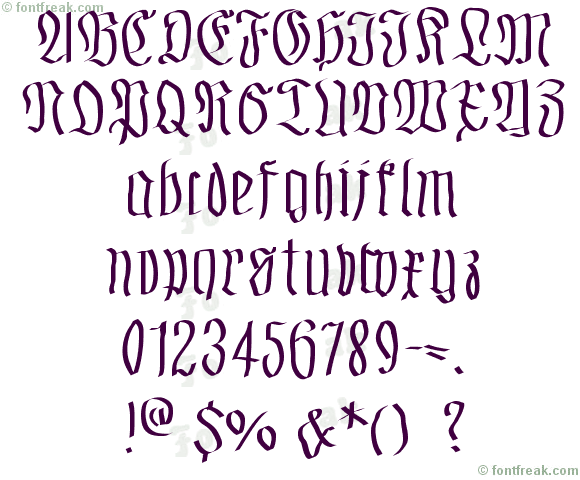
FraxMouseSketches
Frax Mouse Sketches is a delightful display font created by the talented Manfred Klein. This unique typeface falls within the handwritten category, showcasing a charming and whimsical style that is perfect for a variety of creative projects. The font features a playful stroke weight, with irregularities that mimic the appearance of hand-drawn sketches. This gives it a distinct character, making each letter feel personal and inviting. The contrast within the letters is subtle, creating a harmonious flow that enhances readability while maintaining its artistic flair.
The spacing of the characters is thoughtfully designed, allowing for smooth transitions between letters without feeling cramped. Decorative elements, such as playful curves and organic shapes, add to the overall charm of the font, making it an excellent choice for projects that aim to evoke a sense of fun and creativity. Frax Mouse Sketches is ideal for use in children's book titles, quirky branding for cafes or boutiques, engaging event invitations, and eye-catching social media graphics. Its versatility allows it to adapt to various contexts, appealing to both casual and professional users.
The target audience for this font includes graphic designers, small business owners, and content creators looking to add a unique touch to their projects. Whether you are designing a logo, crafting promotional materials, or creating digital content, this font can elevate your work with its distinctive style.
What truly sets Frax Mouse Sketches apart is its ability to bring a sense of warmth and personality to any design. Its handcrafted appearance allows it to stand out in a sea of digital fonts, making it a memorable choice for anyone seeking to make their projects pop. For those interested, the Frax Mouse Sketches font free download is readily available, allowing you to incorporate this delightful typeface into your creative toolkit.